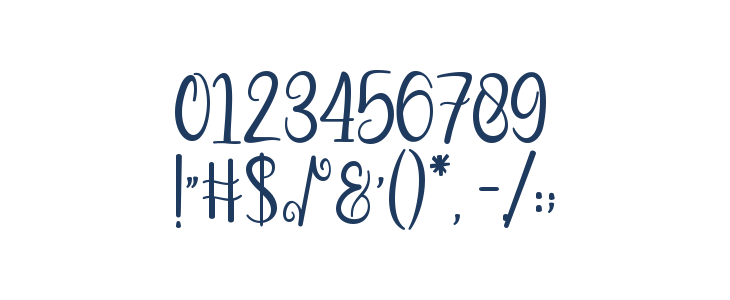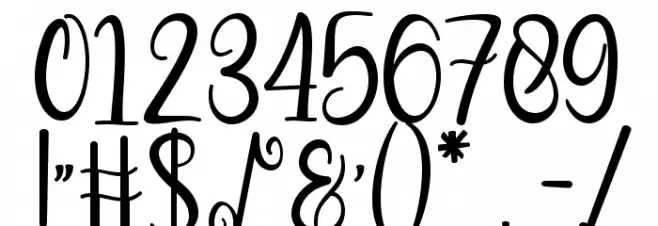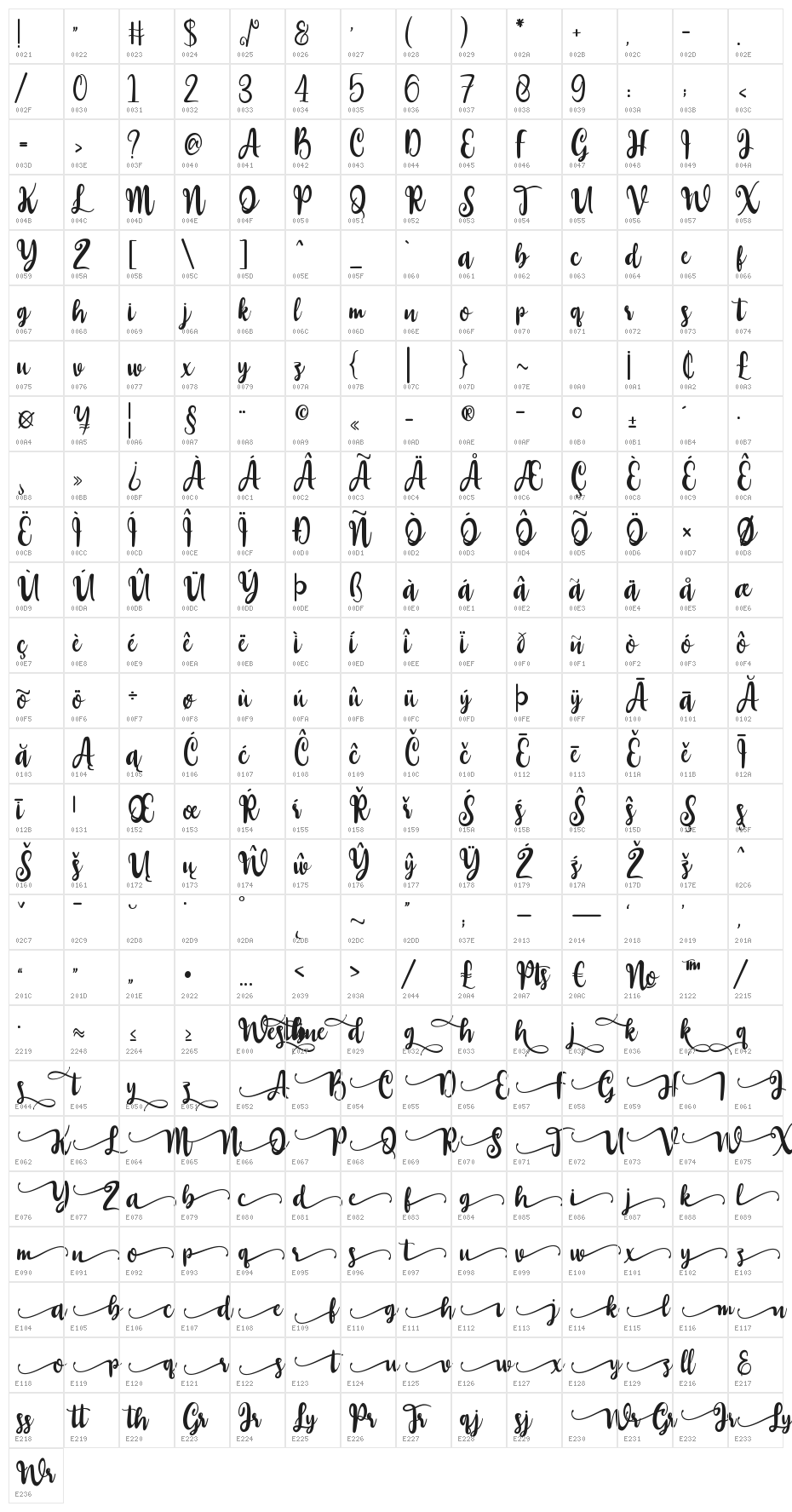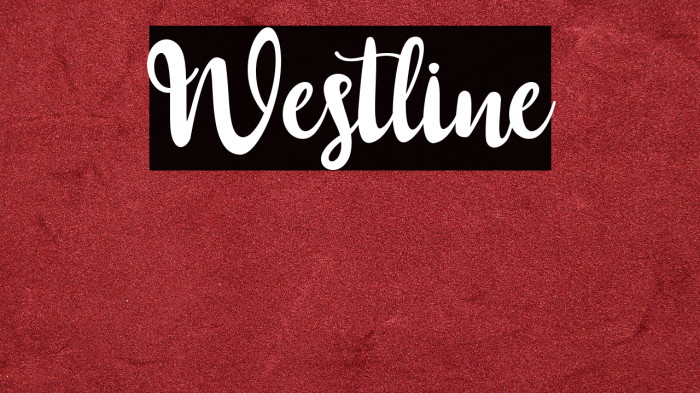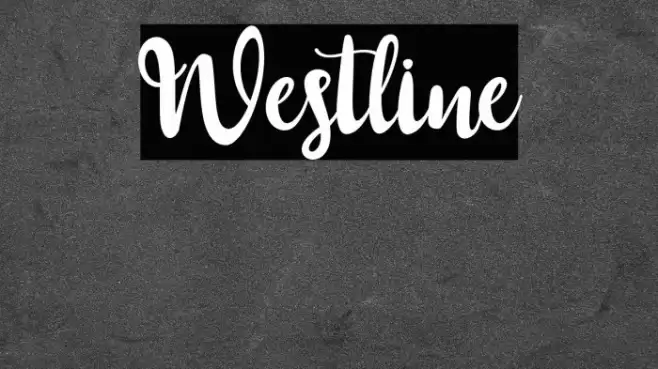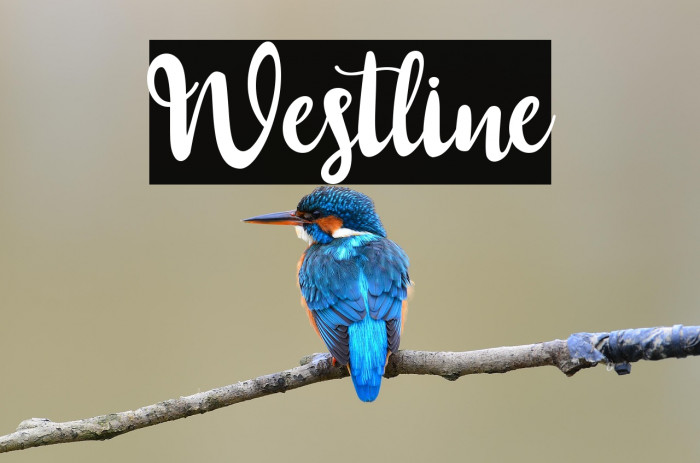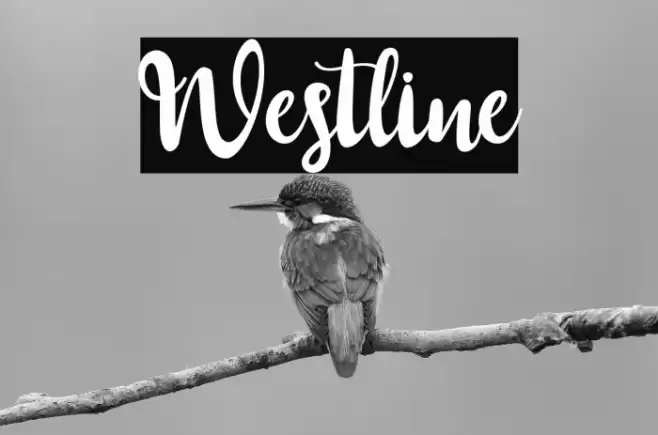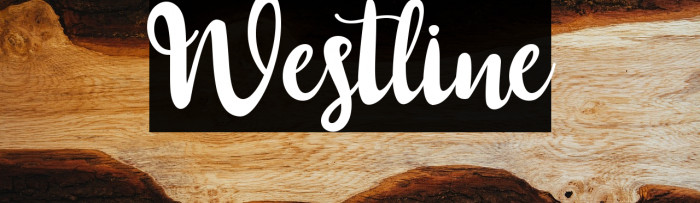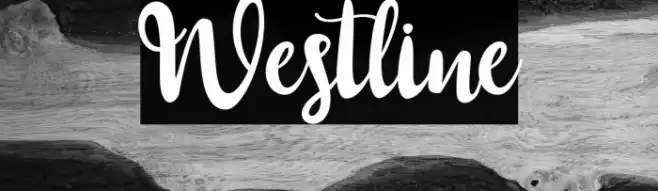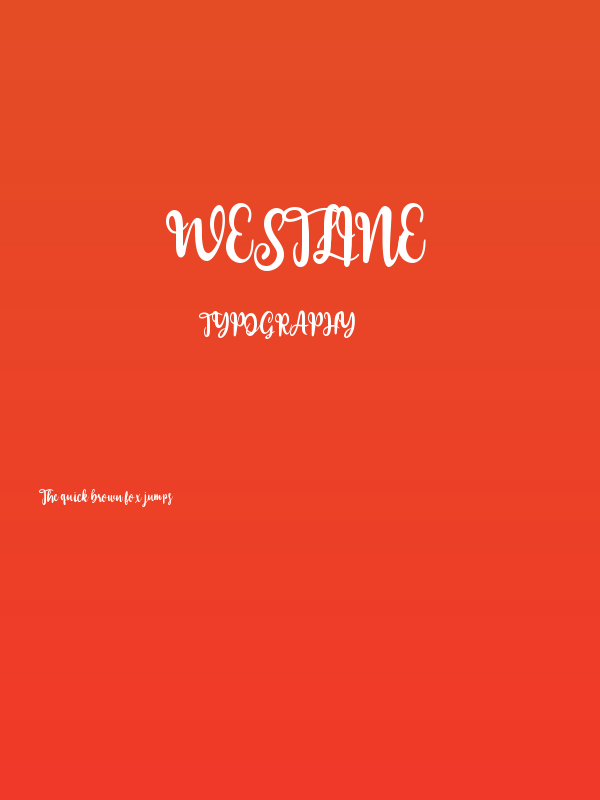
Westline Font
Westline Description
This font features a bold and flowing script style, characterized by its smooth, cursive letterforms. The uppercase letters are particularly ornate, with elegant loops and flourishes that add a touch of sophistication. The lowercase letters maintain a consistent style, offering a harmonious blend of readability and decorative flair. Numbers and special characters are designed to match the overall aesthetic, ensuring a cohesive look across all text elements. The font's playful yet refined appearance makes it suitable for a variety of creative applications.
| Proposed Projects | Ideal for wedding invitations, branding projects, greeting cards, and social media graphics. |